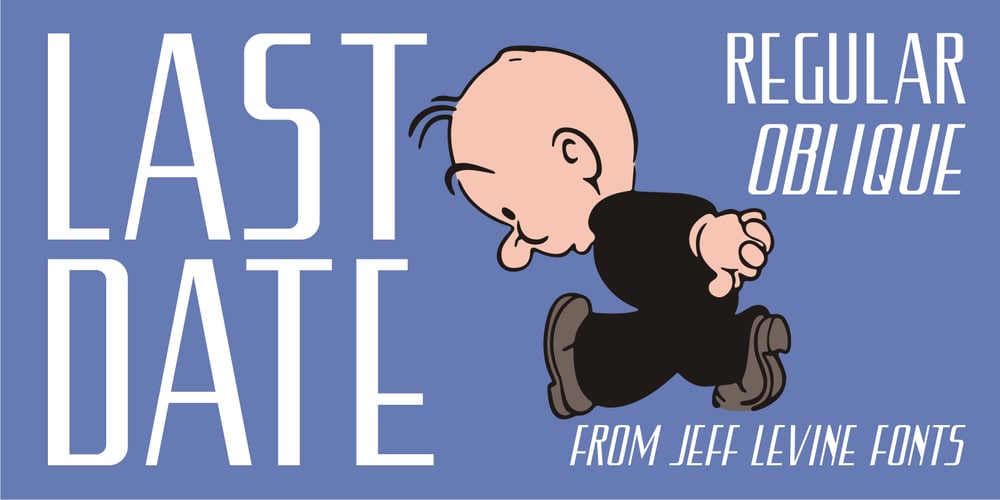
Last Date JNL Font Family was designed by Jeff Levine and published by Jeff Levine. Last Date JNL contains 2 styles and family package options. A typographic conundrum presented itself with the hand lettered title on the cover of the 1919 song “I Am Always Building Castles in the Air”. The capitalized portion [“Castles in the Air”] was a hybrid mix of a few Art Nouveau-influenced rounded letters, yet along with this were squared letters with rounded corners (reflecting the upcoming Art Deco movement to take place in about another decade). As a complete alphabet, it didnít mix as well as in those few short words. What to do? It was decided to go with the squared look and save the rounder characters for a future project. The end result became Last Date JNL; available in both regular and oblique versions.